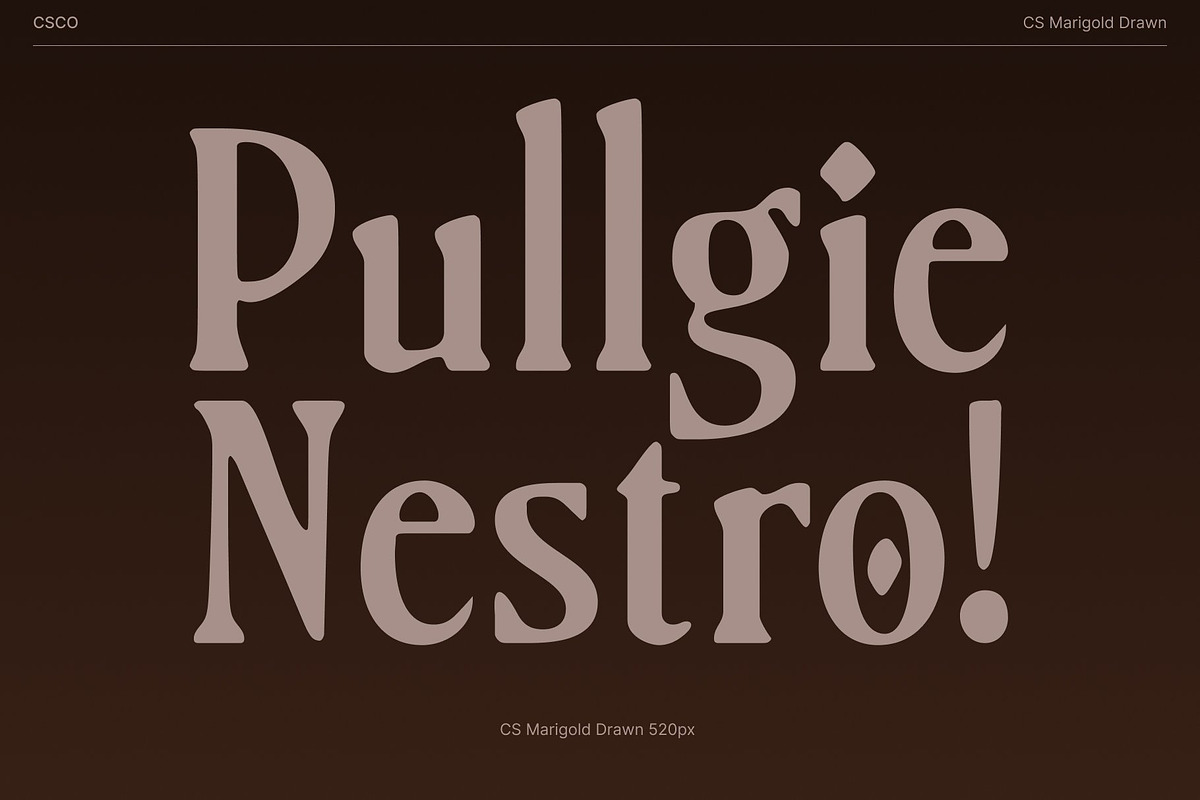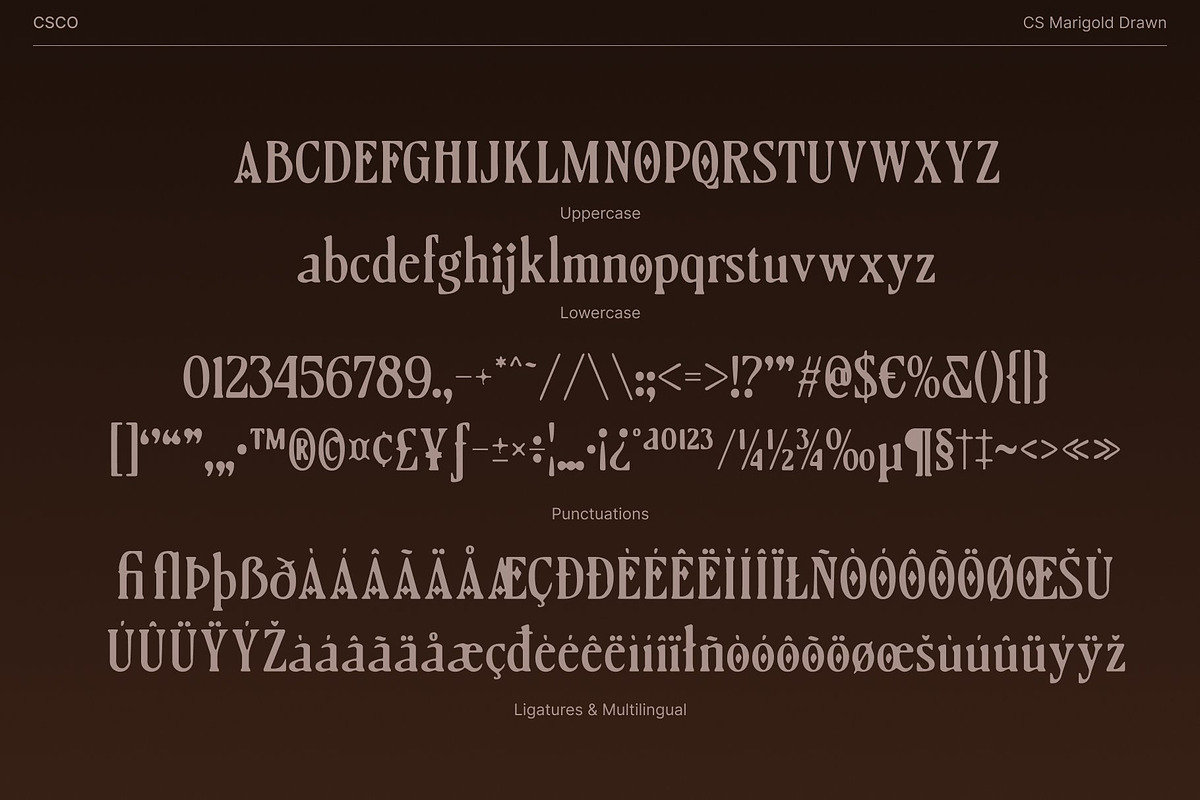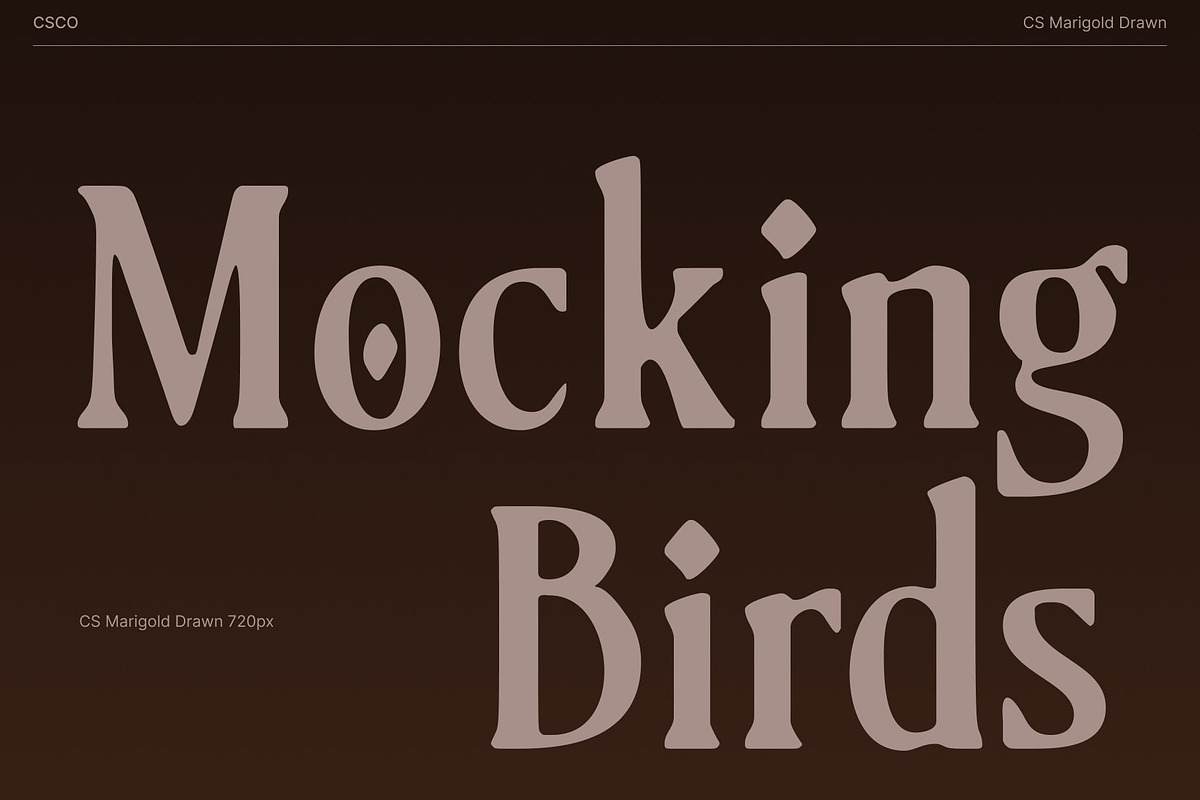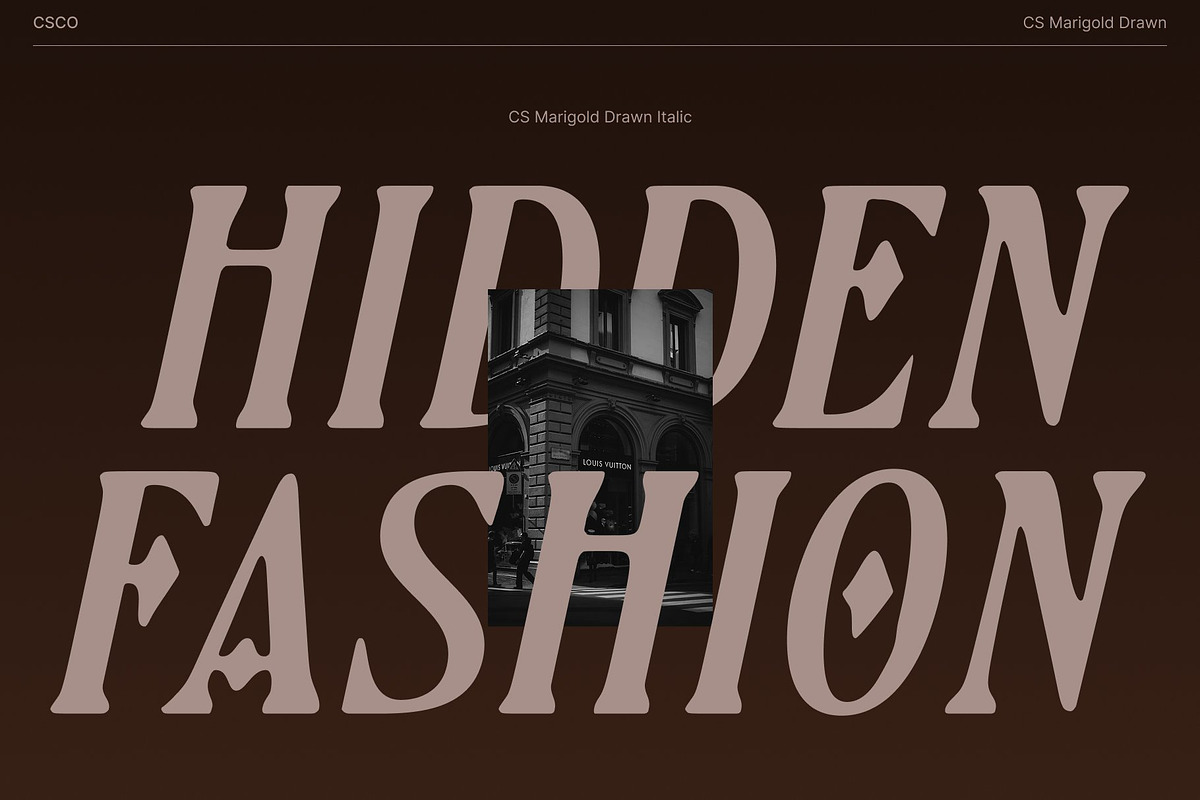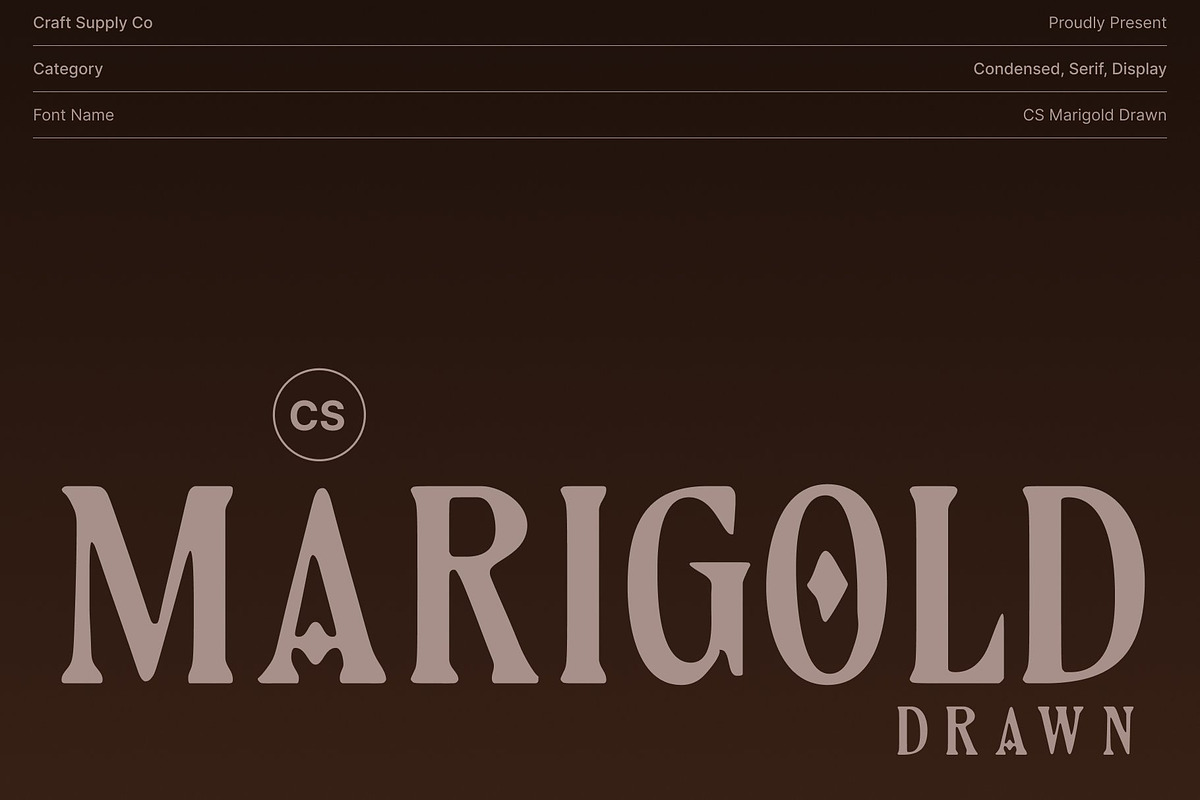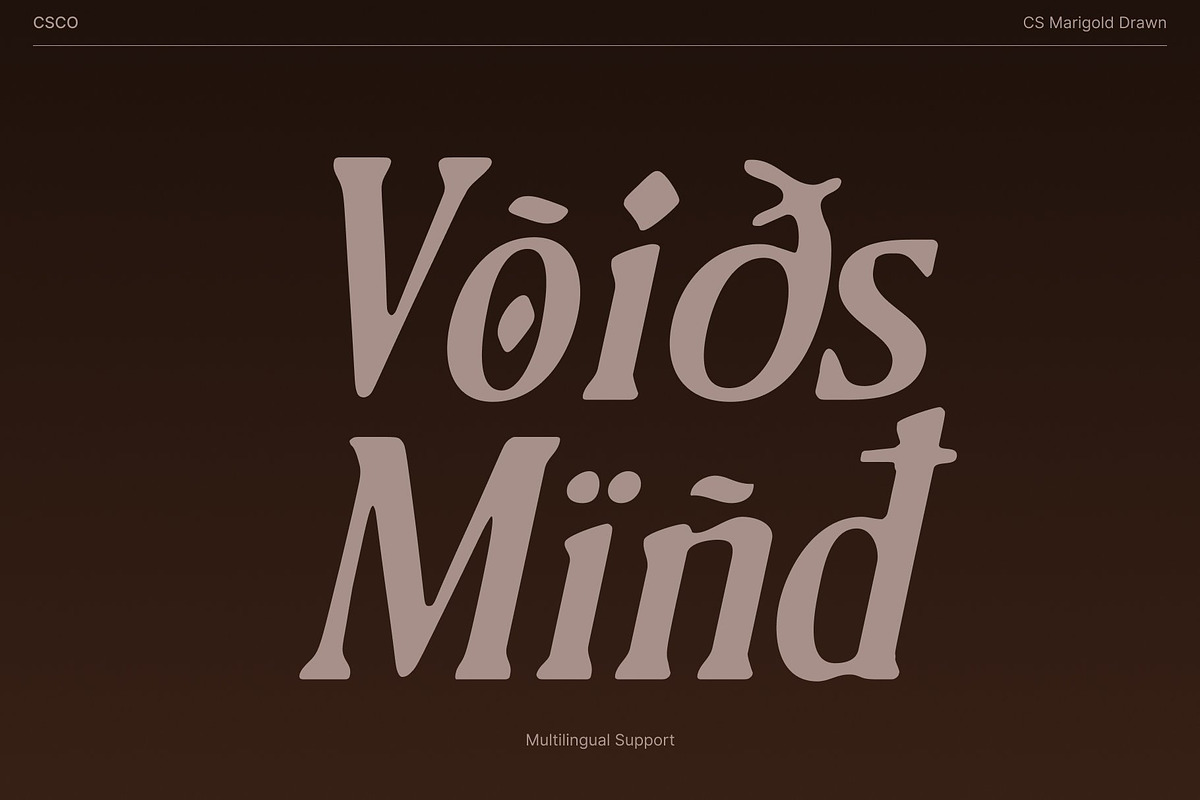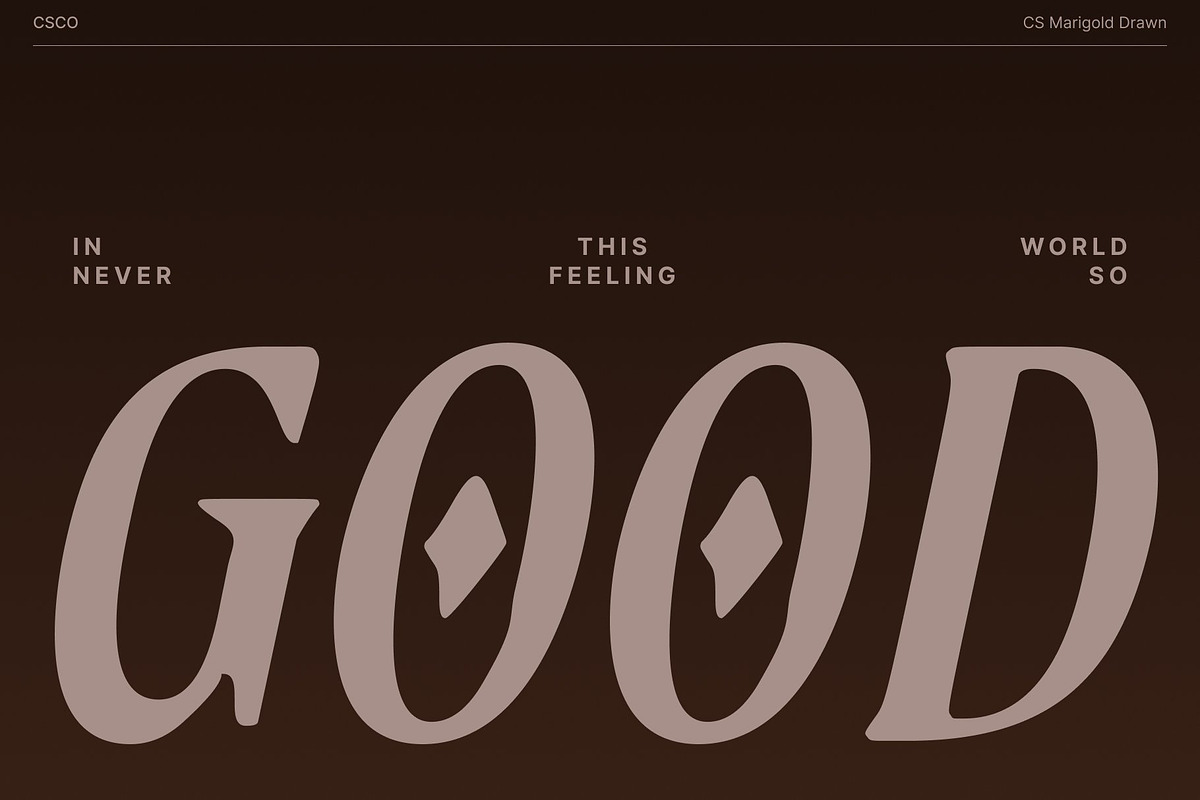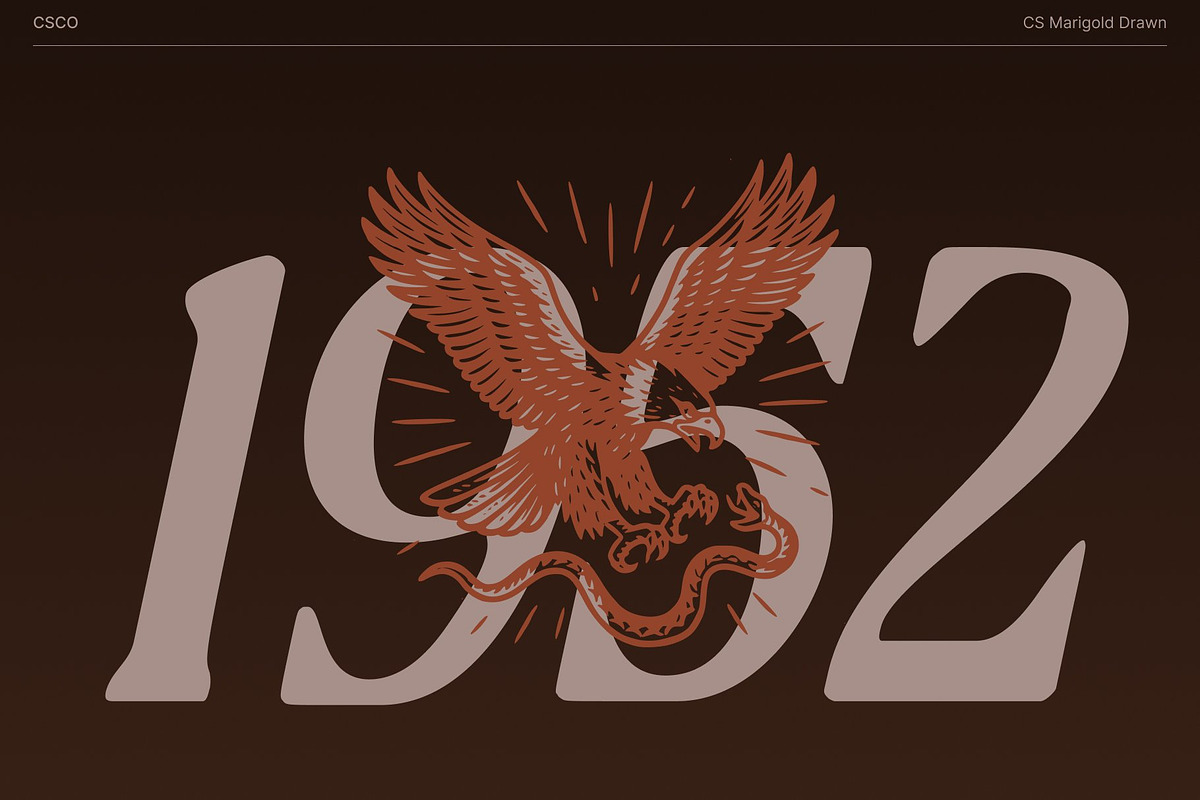
CS Marigold Drawn
CS Marigold Drawn – Renaissance Inspired Font with Hand-Drawn Flourish
Ornamental Design with Classical Elegance This is a Renaissance inspired typeface that captures the grandeur and refinement of historic manuscript lettering. Its flourished serifs and balanced proportions convey timeless beauty, making it ideal for designs that seek sophistication and a classical touch.
Hand-Drawn Flourish with Overflowing Pen Style Enhanced with a drawn effect, this font simulates the fluidity and expressiveness of an overflowing pen. Each letter carries intricate hand crafted details, adding warmth, personality, and an authentic artistic flair to your typography.
Elegant and Striking Letterforms for Impact The bold yet graceful forms ensure readability while maintaining ornamental richness. Perfect for book covers, posters, and high-end cultural branding, this font combines historical elegance with artistic expression, creating text that commands attention.
Perfect for Editorials, Cultural Branding, and Creative Projects This font excels in applications that require a refined, artistic presence. From luxury editorial layouts and book titles to cultural branding and poster designs, its combination of Renaissance-inspired structure and expressive hand-drawn texture transforms projects into visually stunning and historically evocative works.